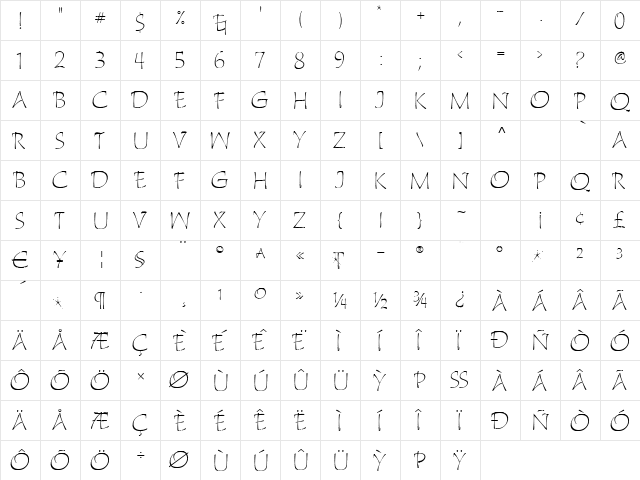
Katytude Plain Regular
Design Context for Katytude Plain Typeface
Katytude Plain offers clean, dependable letterforms without strong stylistic allegiance, making it a practical choice for designers who need flexibility.
Pro Tip: Pair Katytude Plain with a font of contrasting weight or personality to build a more expressive typographic hierarchy.